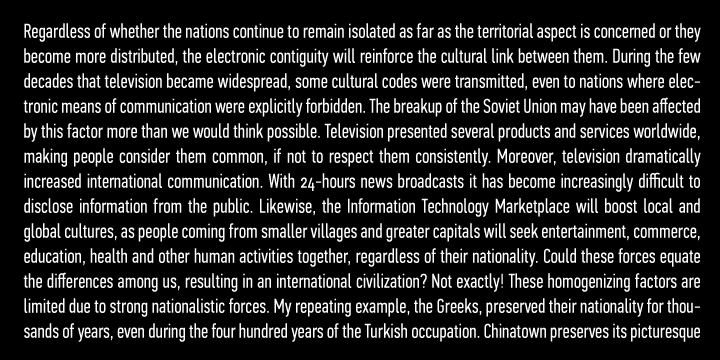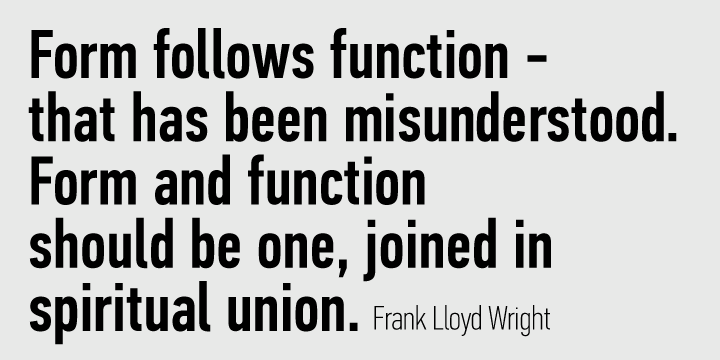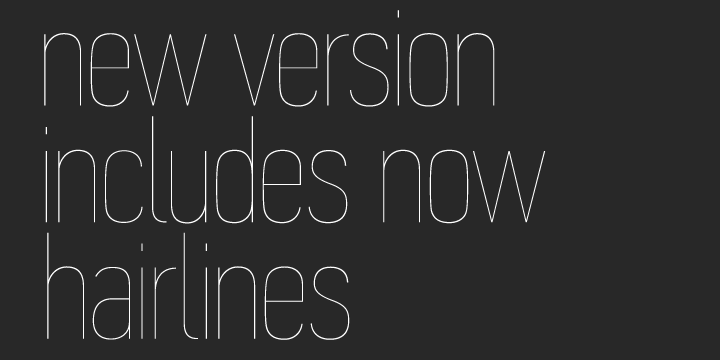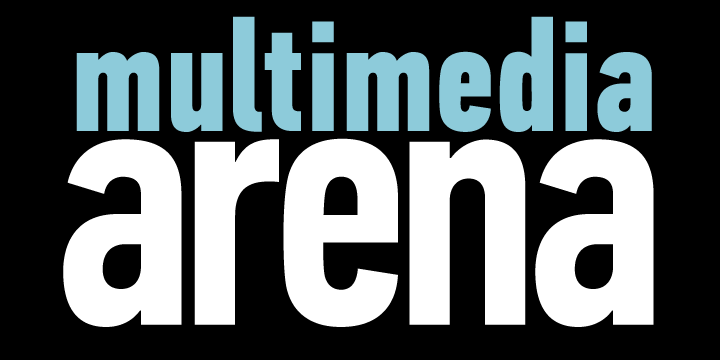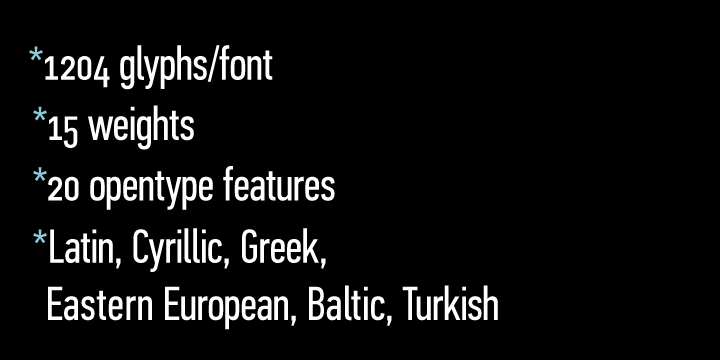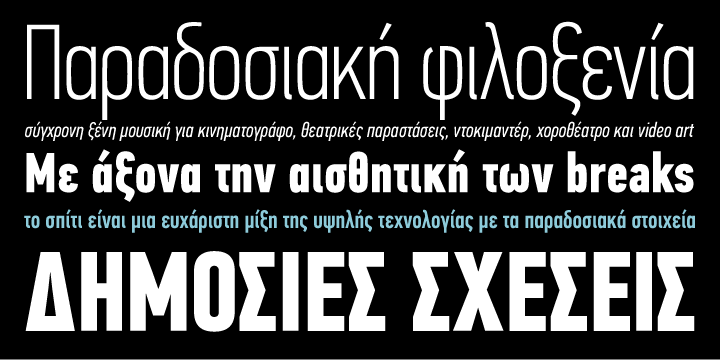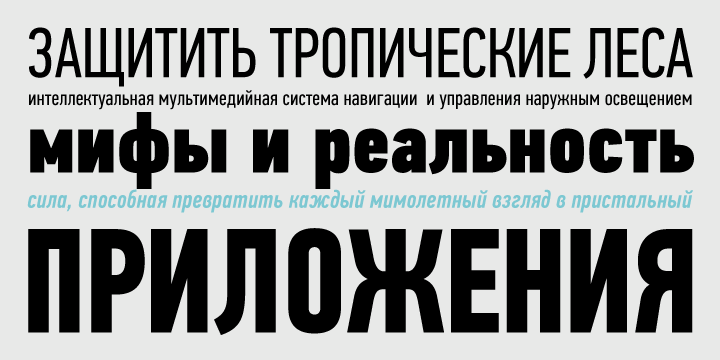
Din Text Compressed Pro Font Family
The DIN Text Pro series, has lowercase ascenders that are higher than the capitals, varying letter proportions and italics that are not a mechanically-obliqued version of the regular weights, but rather true-italics. Each weight consists of an average 1280 glyphs.
The letterforms divert from the stiff geometric structure of the original and introduce instead elements which are familiar, softer and easier to read. The other two superfamilies Condensed and Compressed share the same attributes as the original.
With its vast array of weights, the extended language support, but most of all its careful and detailed design it has proved valuable to numerous design agencies for their complex corporate projects.
Additionally, every font in these superfamilies has been completed with 270 copyright-free symbols, some of which have been proposed by several international organizations. This is a set of very useful daily symbols for packaging, branding and advertising. Symbols for public areas, environment, transportation, computers, fabric care and urban life.